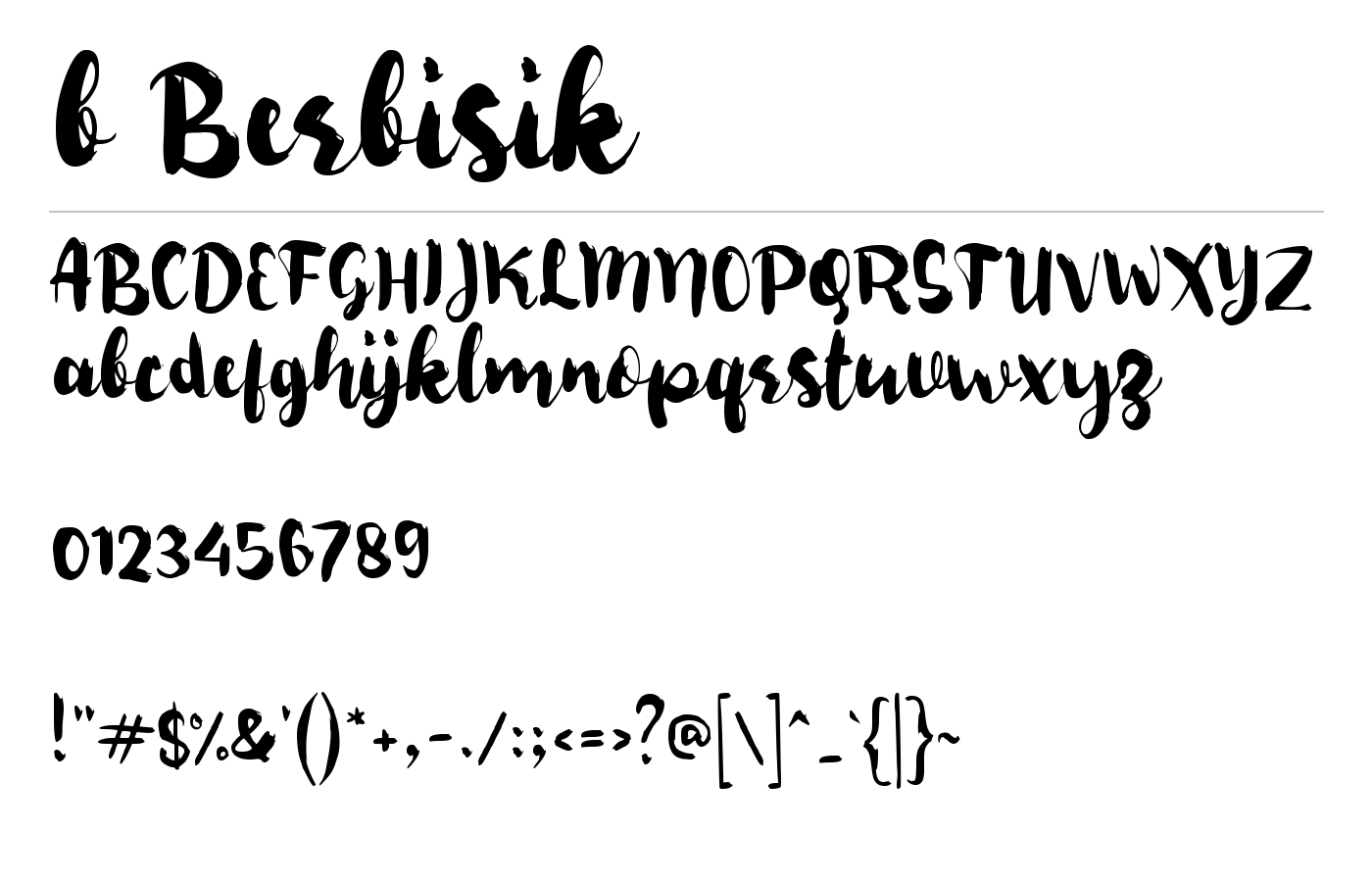
Berbisik is a lively script font with a bold, brushstroke style that exudes creativity and warmth. Its fluid, hand-drawn letterforms feature high contrast in stroke weight, giving it an expressive, casual feel perfect for artistic branding, invitations, or headlines that want to capture a personal touch. This font shines best in designs seeking a friendly, approachable vibe with a dynamic, handcrafted flair.
b Berbisik Font
About b Berbisik Font